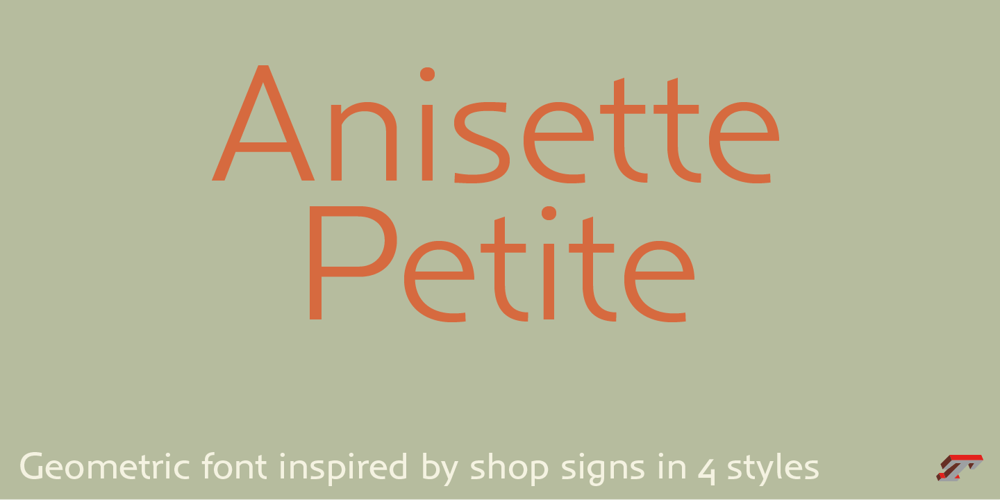
Anisette Std Petite
Anisette Std Petite Font Family was designed by Jean François Porchez, Deberny et Peignot Design Studio and published by Typofonderie. Anisette Std Petite contains 4 styles and family package options. Geometric font inspired by shop signs in 4 stylesAnisette has sprouted as a way to test some ideas of designs. It has started with a simple line construction (not outlines as usual) that can be easily expanded and condensed in its width in Illustrator. Subsequently, this principle of multiple widths and extreme weights permitted to Jean François Porchez to have a better understanding with the limitations associated with the use of MultipleMaster to create intermediate font weights.Anisette built around the idea of two widths capitals can be described as a geometric sanserif typeface influenced by the 30s and the Art Deco movement. Its design relies on multiple sources, from Banjo through Cassandre posters, but especially lettering of Paul Iribe. In France, at that time, the Art Deco spirit is mainly capitals. Gérard Blanchard has pointed to Jean Francois that Art Nouveau typefaces designed by Bellery-Desfontaines was featured before the Banjo with this principle of two widths capitals. The complementarity between the two typefaces are these wide capitals mixed with narrow capitals for the Anisette while the Anisette Petite – in its latest version proposes capitals on a square proportions, intermediate between the two others sets. Of course, the Anisette Petite fonts also includes lowercases too.Anisette Petite, a geometric font inspired by shop signs in 4 stylesSo, when Jean François Porchez has decided to create lowercases the story became more complicated. His stylistic references couldn’t be restricted anymore to the French Art-déco period but to the shop signs present in our cities throughout the twentieth century. These signs, lettering pieces aren’t the typical foundry typefaces. Simply because the influences of these painted letters are different, not directly connected to foundry roots which generally follow typography history. The outcome is a palette of slightly strange shapes, without strictly not following geometrical, mechanical and historical principles such as those that typically appear in typefaces marketed by foundries. As an example, the Anisette Petite r starts with a small and visible sort of apex that no other similar glyphs such as n or m feature, but present at the end of the l and y. The famous g loop is actually inspired by Chancery scripts, which has nothing to do with the lettering. The goal is of course to mix forms without direct reports, in order to properly celebrate this lettering spirit. This is why the e almost finishes horizontally as the Rotis – and the top a which must logically follow this principle and is drawn more round-curly. This weird choice seemed so odd to its designer that he shared his doubts and asked for advise to Jeremy Tankard who immediately was reassuring: “Oddly, your new top a is fine, it brings roundness to the typeface, when the previous pushes towards Anisette Petite to unwanted austerity.” The Anisette Petite, since its early days, is a mixture of non-consistent but charming shapes.Anisette, an Art Déco typefaceAnisette Petite Club des directeurs artistiques, 46e palmarèsBukva:raz 2001